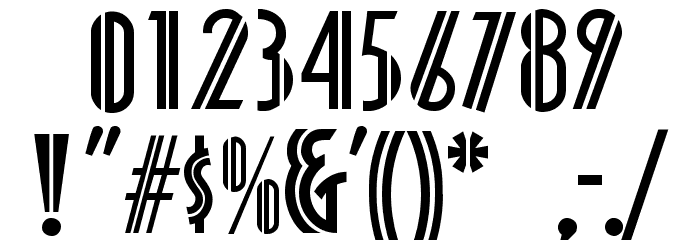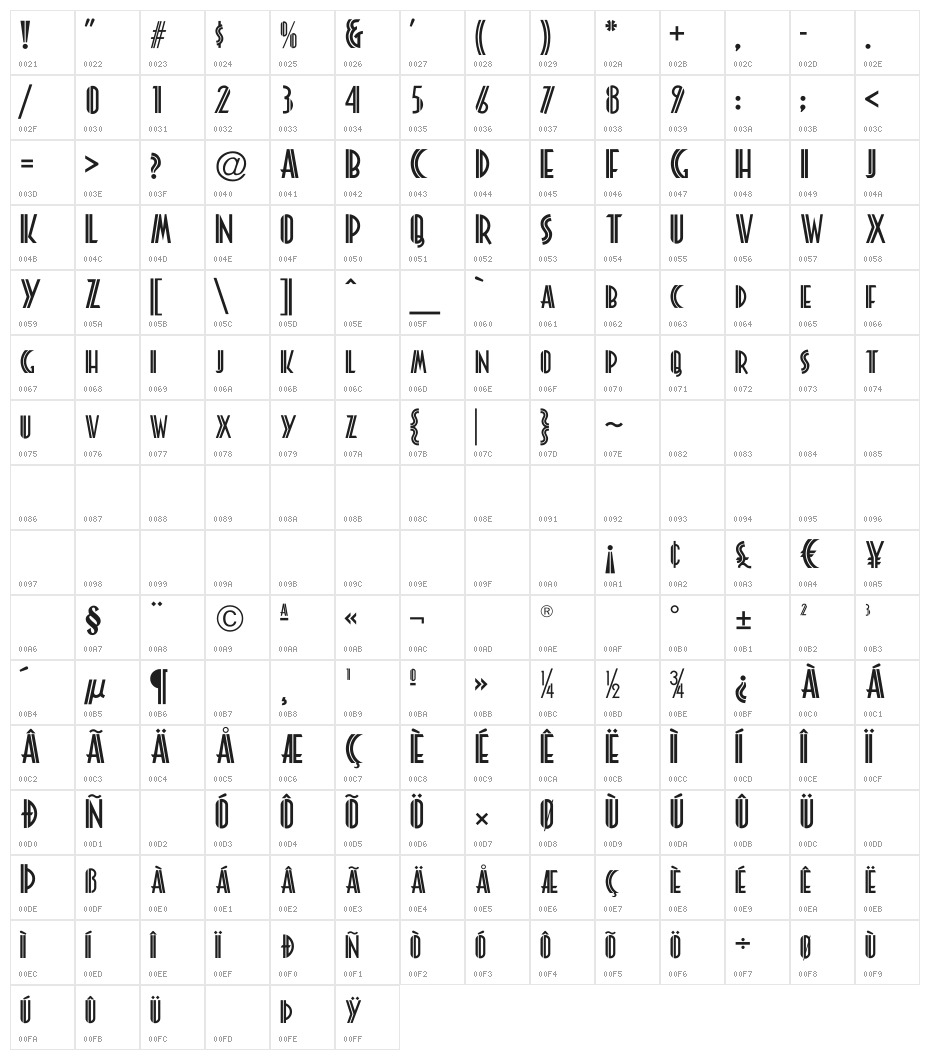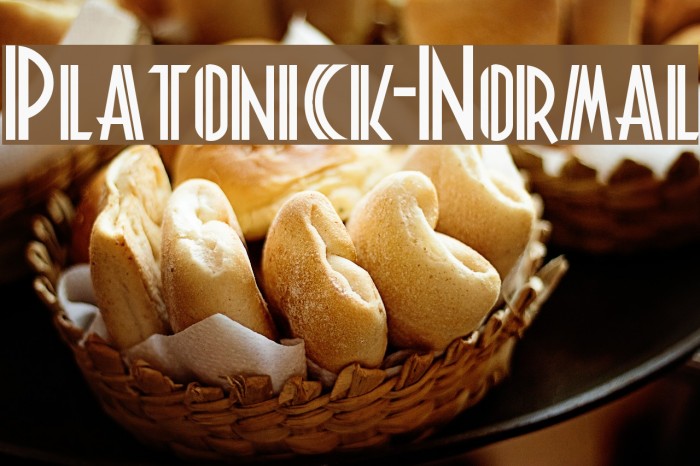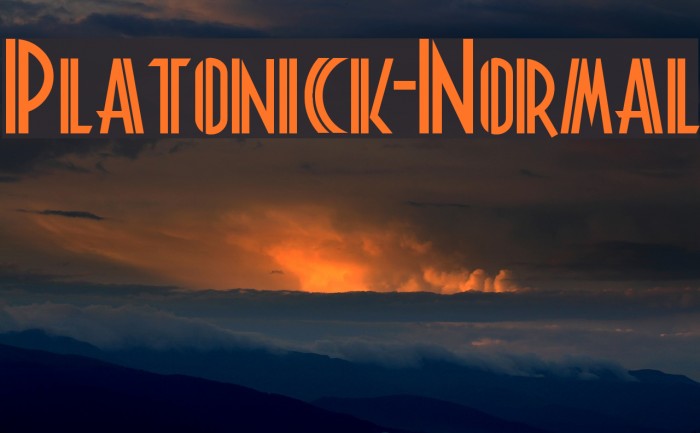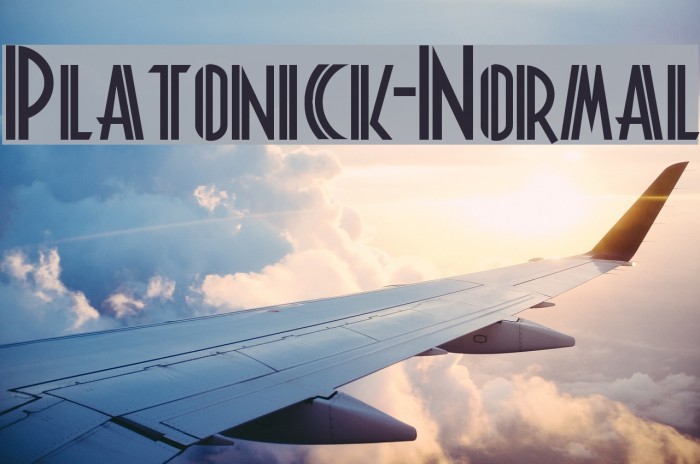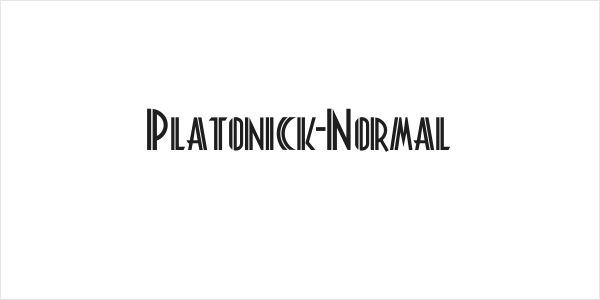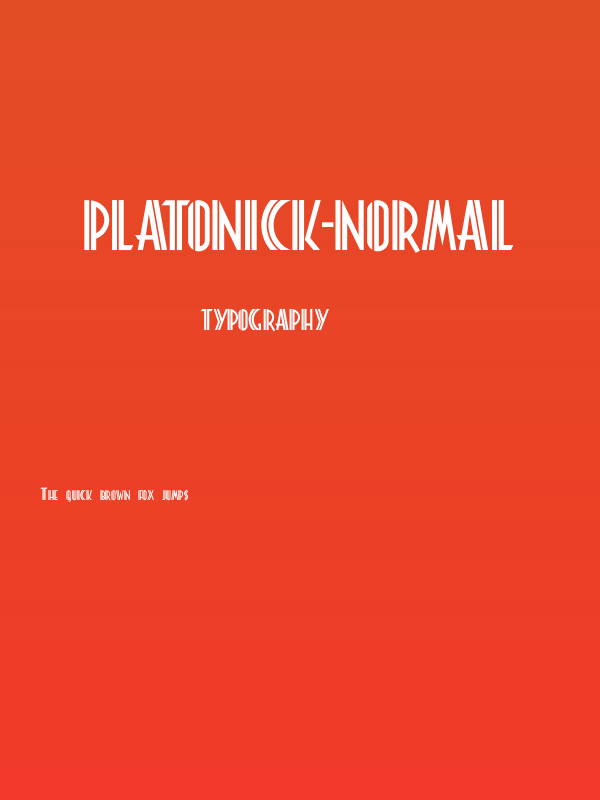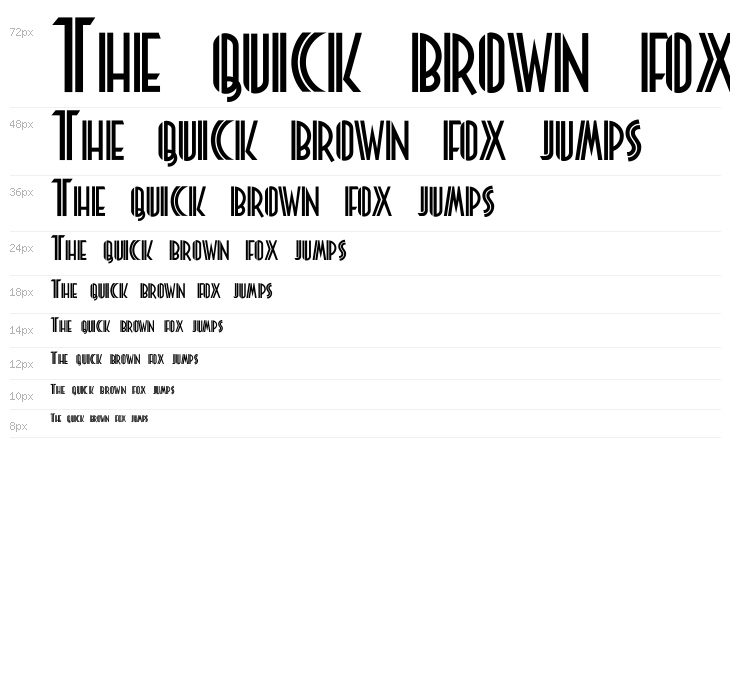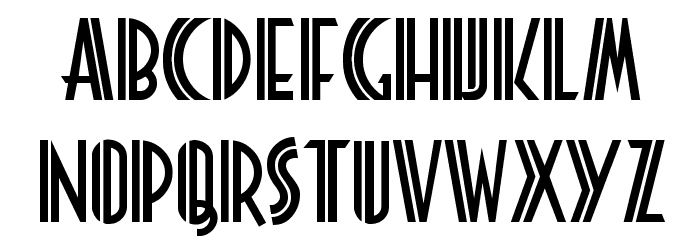
Platonick-Normal Font
Platonick-Normal Description
This font features a bold and striking design with a strong geometric influence. The characters are constructed with sharp angles and clean lines, creating a sense of modernity and sophistication. The uppercase letters are particularly distinctive, with unique shapes that give the font a futuristic feel. The numerals and special characters maintain this aesthetic, ensuring consistency across all text. The font's design is both eye-catching and versatile, making it suitable for a variety of creative projects.